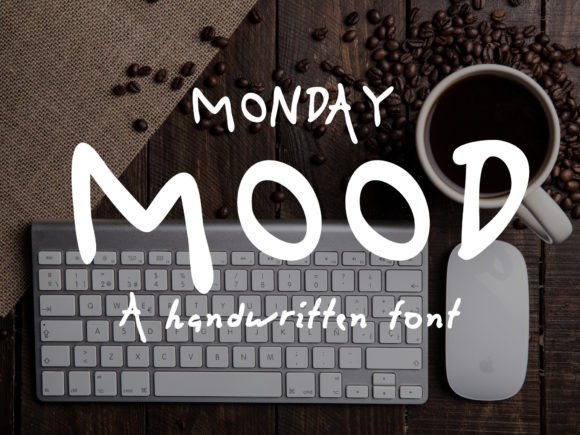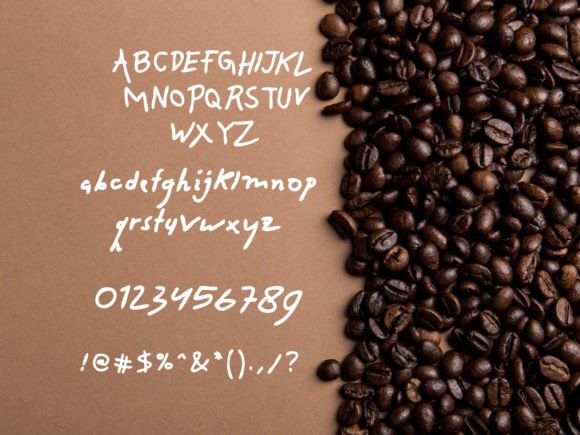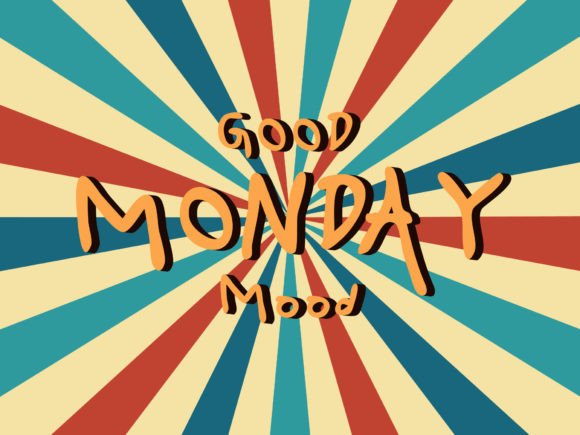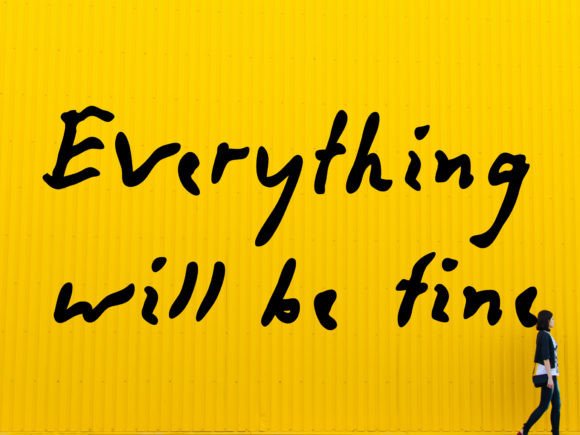
Monday Mood Font
About Monday Mood Font
Monday Mood Font is a quirky and fun handwritten font, designed to bring light-hearted energy to any creative work. With its irregular baseline and playful letterforms, this font adds charm and personality to everything from greeting cards to digital graphics.
A Font That Stands Out
This font’s irregular baseline makes it feel dynamic and full of character. As a result, it’s perfect for projects that aim to stand out. Whether you’re crafting DIY printables, designing logos, or preparing presentations, Monday Mood Font can help convey a cheerful and unique message.
Additionally, its casual flow and hand-drawn aesthetic allow it to pair well with illustrations, colorful layouts, and seasonal themes.
Ideal Uses
Because of its versatile style, Monday MoodFont fits perfectly in:
• Greeting cards and invitations
• Scrapbooking and stickers
• Branding and product packaging
• Instagram posts and blog graphics
• Posters, quotes, and children’s books
• T-shirt and mug designs
No matter the platform or purpose, this font maintains readability while adding a joyful twist.